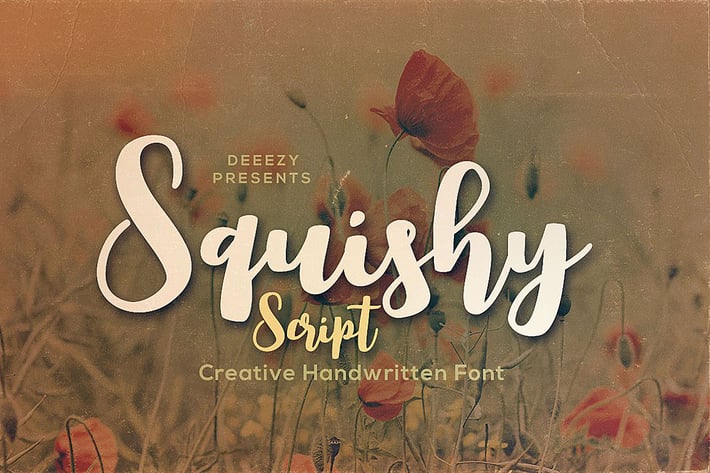
Squishy Script Font
Bold and handwritten or brush style script font for your new projects. With multi language support and lot of stylistic alternates & swashes. Enjoy ;)